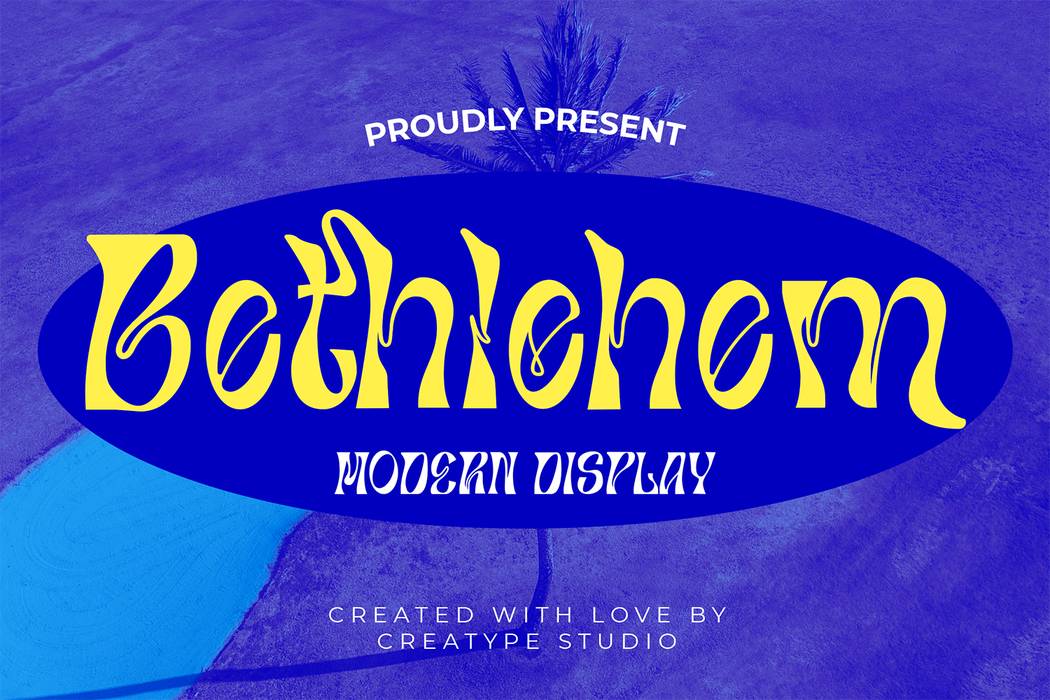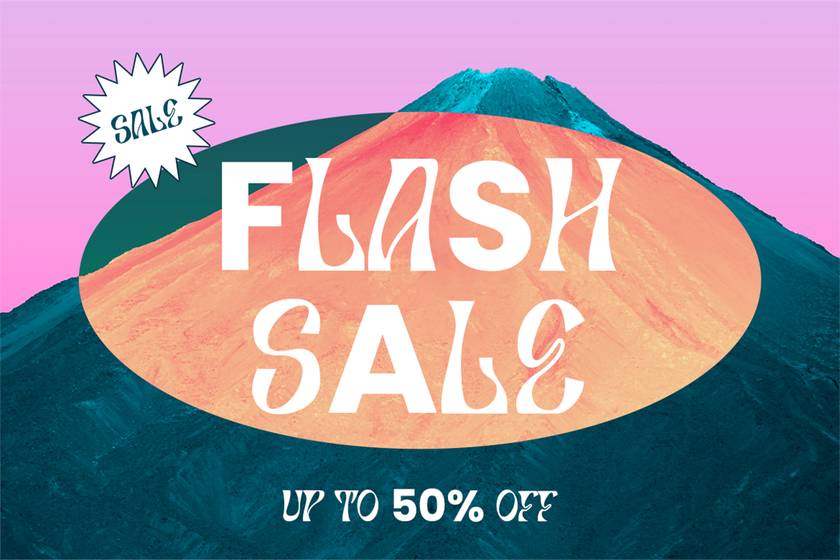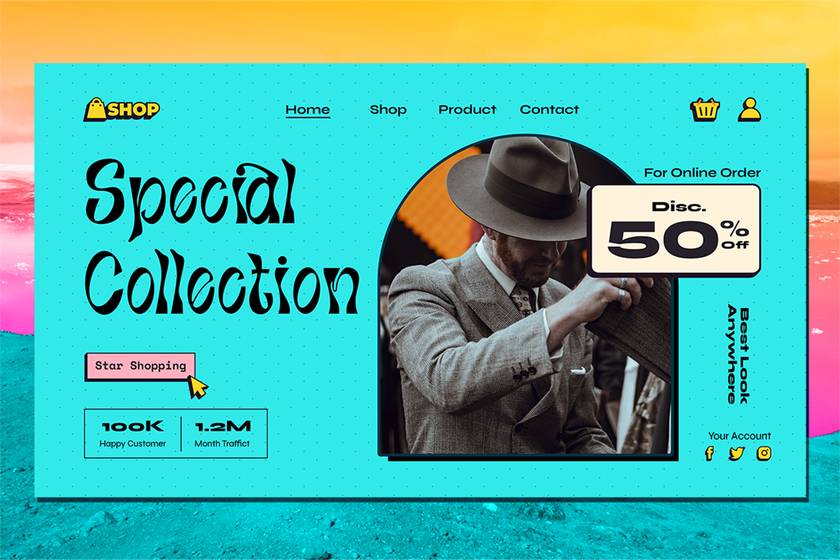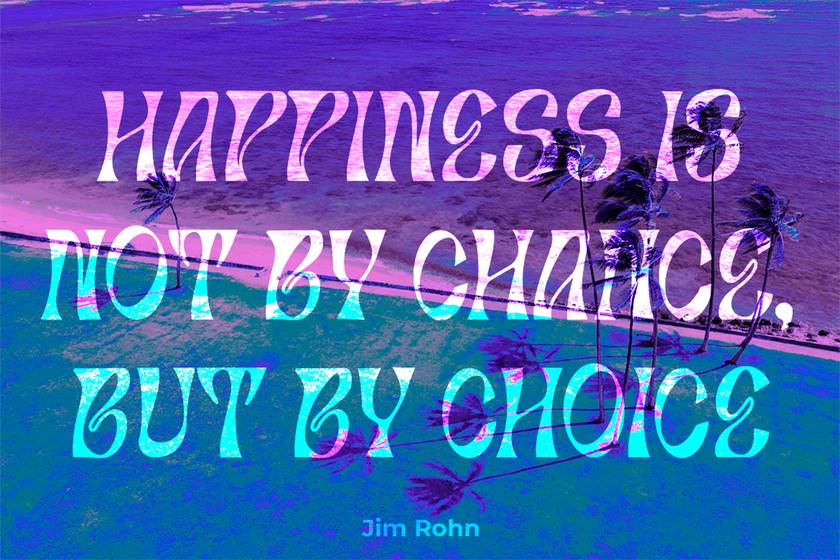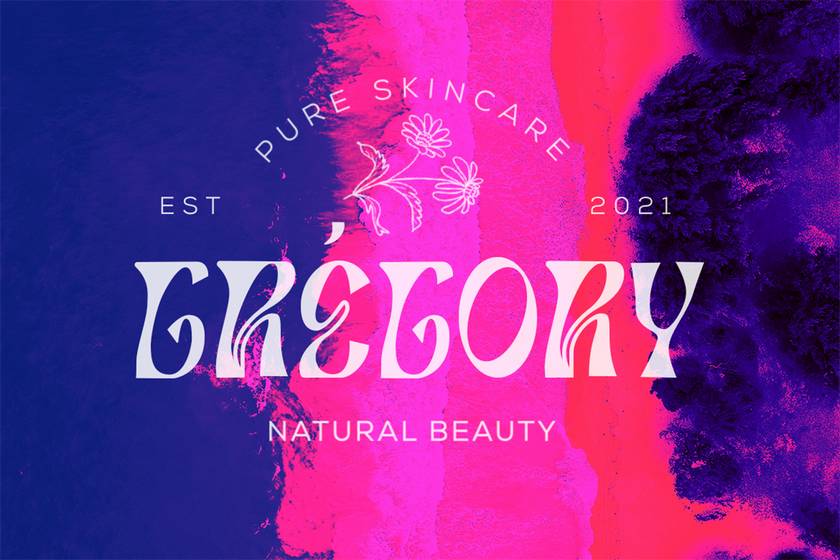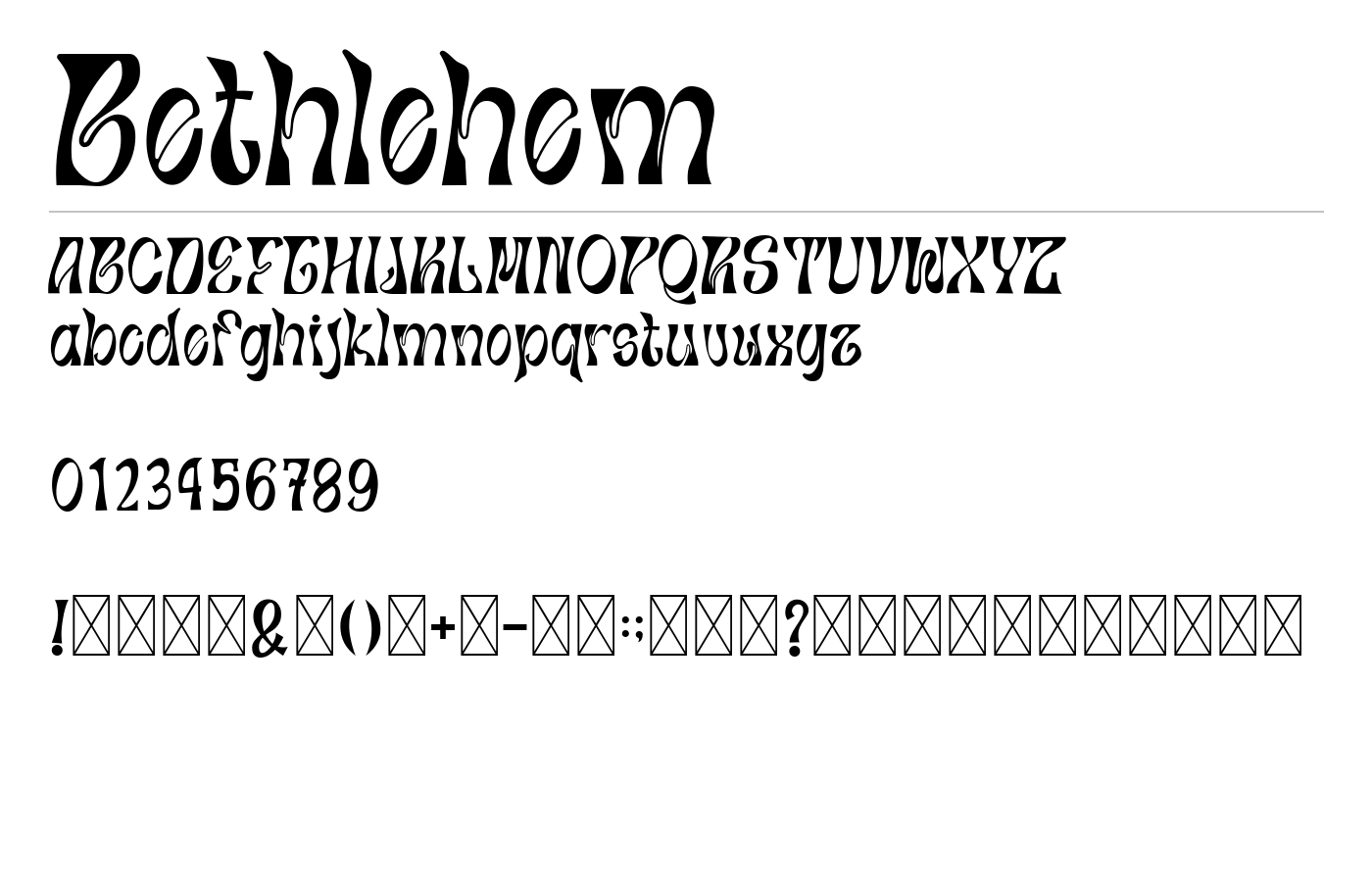
Bethlehem Font is a distinctive serif typeface with a strong artistic flair, featuring high contrast between thick and thin strokes and quirky, irregular shapes that give it a vintage, almost whimsical personality. Its tall, narrow letterforms and unique details make it ideal for eye-catching headlines, logos, and creative branding that seek to convey a bold yet playful character. This font works best in display settings where its dramatic style can be appreciated without sacrificing readability.
Bethlehem Font
About Bethlehem Font
| Font family | Bethlehem Font |